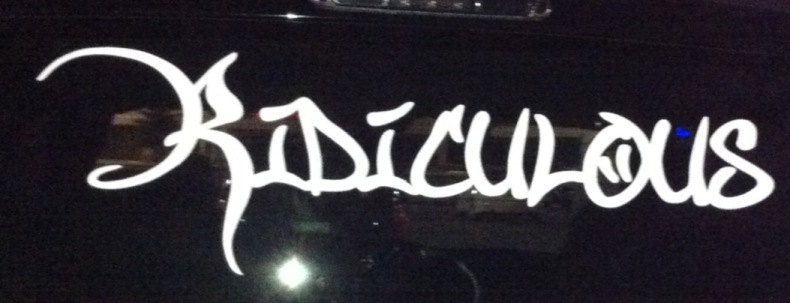
Font ID
Saw this somewhere and took a pic to see if anyone here might know the font. Thanks for any help you may have!
Nice, thanks! I actually looked on dafont but probably missed it because the R is different.
Anyone know what font that R is from?